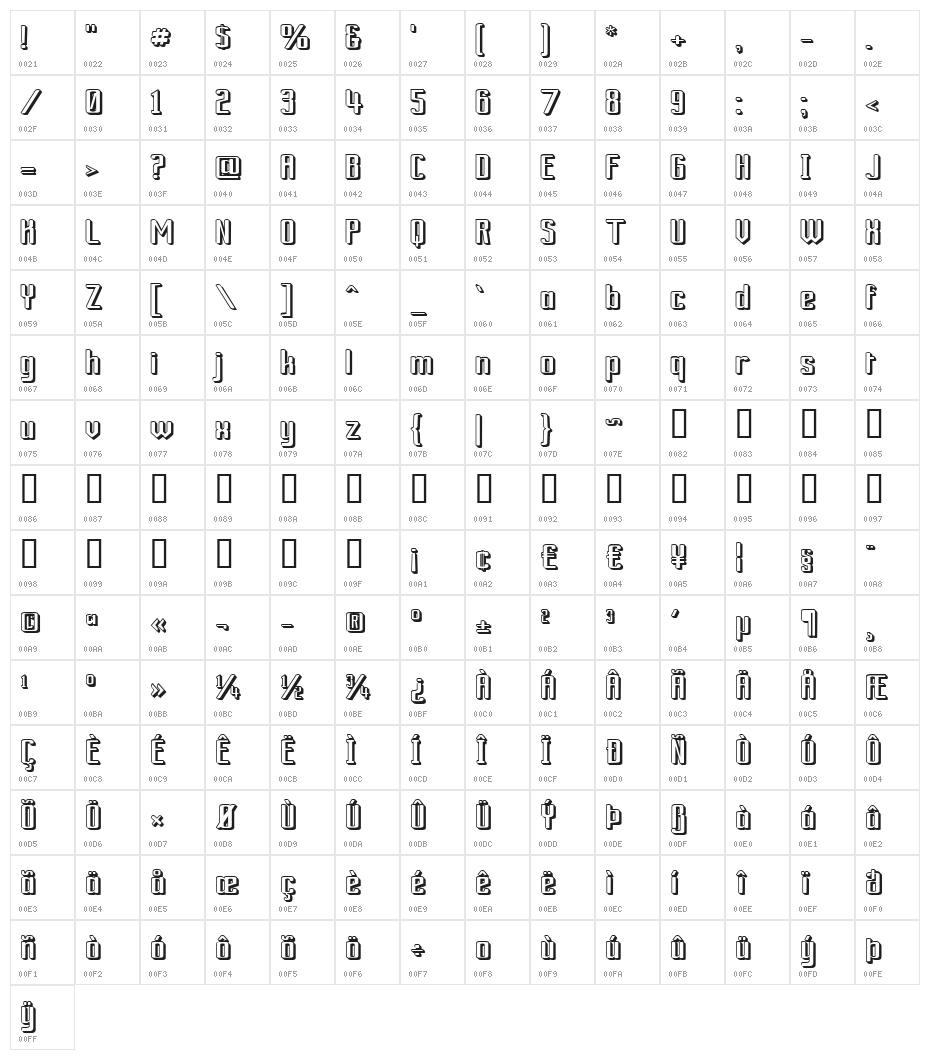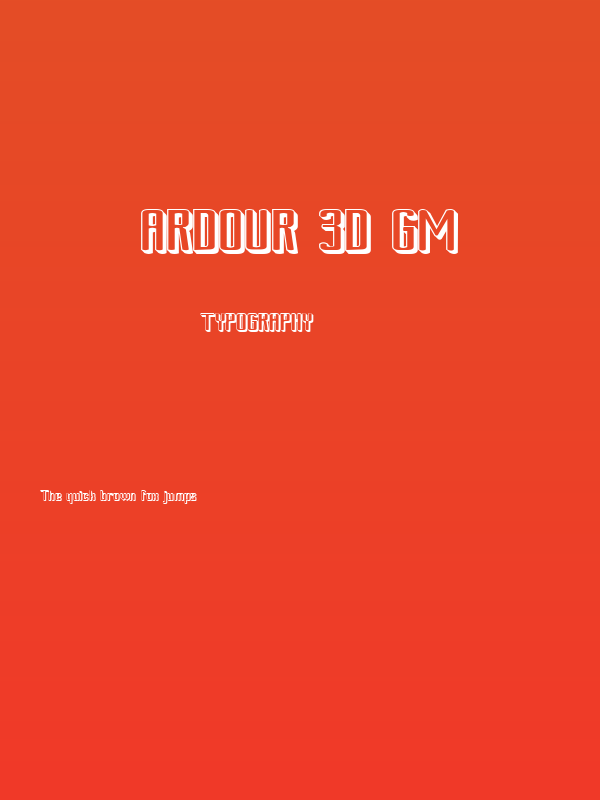
Ardour 3D GM Font
Ardour 3D GM Description
This font features a bold, three-dimensional design that gives each character a striking, shadowed appearance. The uppercase and lowercase letters are crafted with a strong geometric structure, creating a sense of depth and solidity. The numbers and special characters maintain this 3D effect, ensuring consistency across all elements. The font's style is both modern and playful, making it suitable for eye-catching designs. Its boldness and unique shadowing make it stand out, ideal for projects that require a distinctive and memorable typeface.
| Proposed Projects | Ideal for posters, logos, headlines, and any design needing a bold, standout typeface. |